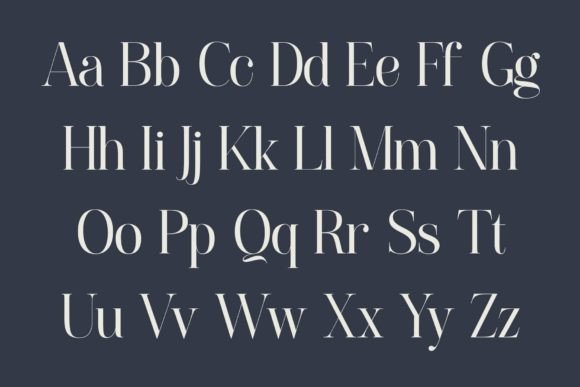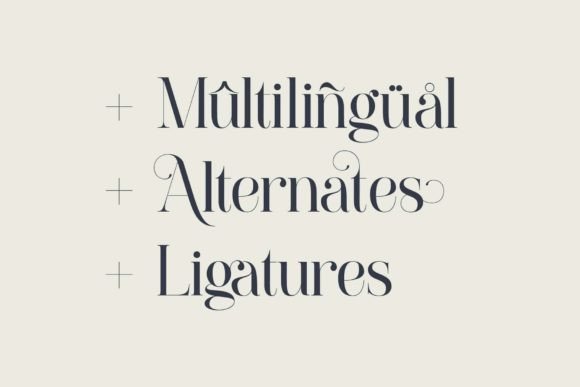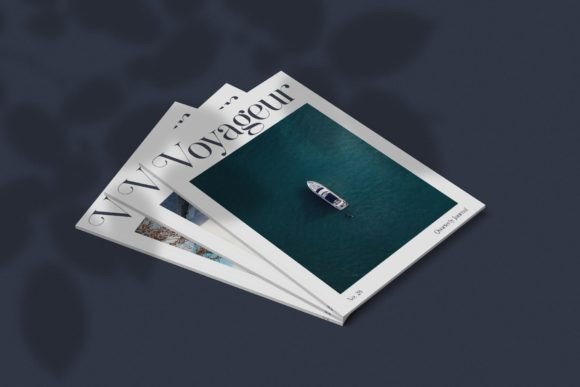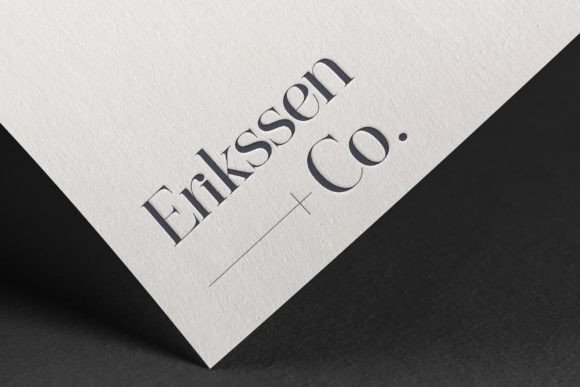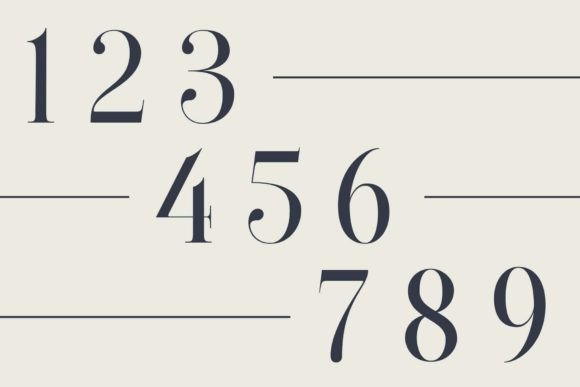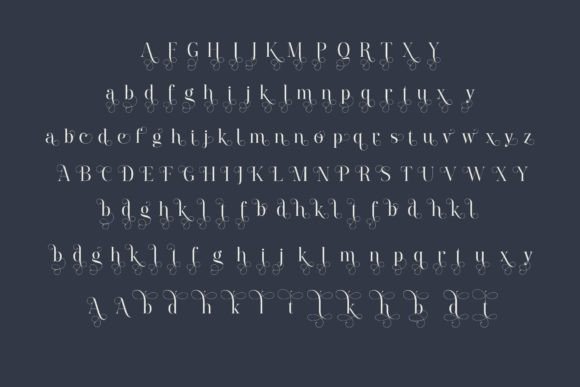
Introduction to Paradizo Font
Have you ever found yourself staring at a blank canvas, desperately searching for the perfect font to bring your creative project to life? The struggle is real, but what if I told you there’s a game-changing design resource that’s about to revolutionize the way you create? Say hello to the Paradizo Font, an elegant serif font that’s sure to elevate your designs to new heights.
As a designer, you understand the importance of a high-quality font that can make or break a project. That’s where Paradizo Font comes in – with its regular and oblique versions, this versatile font is perfect for editorial design, branding, web design, and product design, among many other creative pursuits. Plus, with a plethora of alternates and ligatures at your disposal, you’ll be able to create unique, luxurious designs with ease, whether you’re working on a project with a transparent background or a complex layout.
Key Features of Paradizo Font
- High-quality design resource ideal for creative projects, offering a unique and elegant style.
- Perfect for use in graphic design, digital art, and other creative projects where a sophisticated and modern font is required.
Honest Review: Paradizo Font
I recently had the chance to work with the Paradizo Font, and I must say it’s been a game-changer for my creative projects. The high quality of this font has taken my designs to the next level, and I’m excited to share my honest review with you.
- ✨ High-quality design that’s perfect for professional use.
- ⚠️ Limited character set, which may not be suitable for all creative projects.
- ⚠️ Some users may find the font’s style too trendy, which may not be suitable for all design contexts.
Overall, I’m thoroughly impressed with the Paradizo Font. Its high-quality design and transparent background make it an excellent addition to any designer’s toolkit. While it may have some limitations, I believe it’s a valuable resource for designers looking for a professional-grade font.
How to Use Paradizo Font
The Paradizo Font is a high-quality design resource ideal for creative projects that require a unique and stylish touch. This font features a transparent background, making it versatile for various design applications.
Tips for Getting the Most Out of Paradizo Font
To get the most out of the Paradizo Font, use it in combination with other high-quality design resources, such as images and graphics. Experiment with different font sizes and styles to create visually appealing designs.
The Paradizo Font is ideal for various design applications, including:
Blog posts and articles
Social media graphics
Marketing materials
Branding and identity design
Alternatives to Paradizo Font
Great Vibes Font is a high-quality, elegant script font ideal for creative projects that require a touch of sophistication. It’s perfect for use on a transparent background, making it a great design resource for logos, branding, and typography-based designs.
Compared to Paradizo Font, Great Vibes Font has a more refined and polished look, making it suitable for formal and professional applications.
Alex Brush Font is a beautiful, handwritten font that’s perfect for designers who want to add a personal touch to their creative project. It’s a great design resource for use on a transparent background, making it ideal for logos, typography-based designs, and branding materials.
Unlike Paradizo Font, Alex Brush Font has a more rustic and handmade feel, making it suitable for applications that require a unique and personal touch.